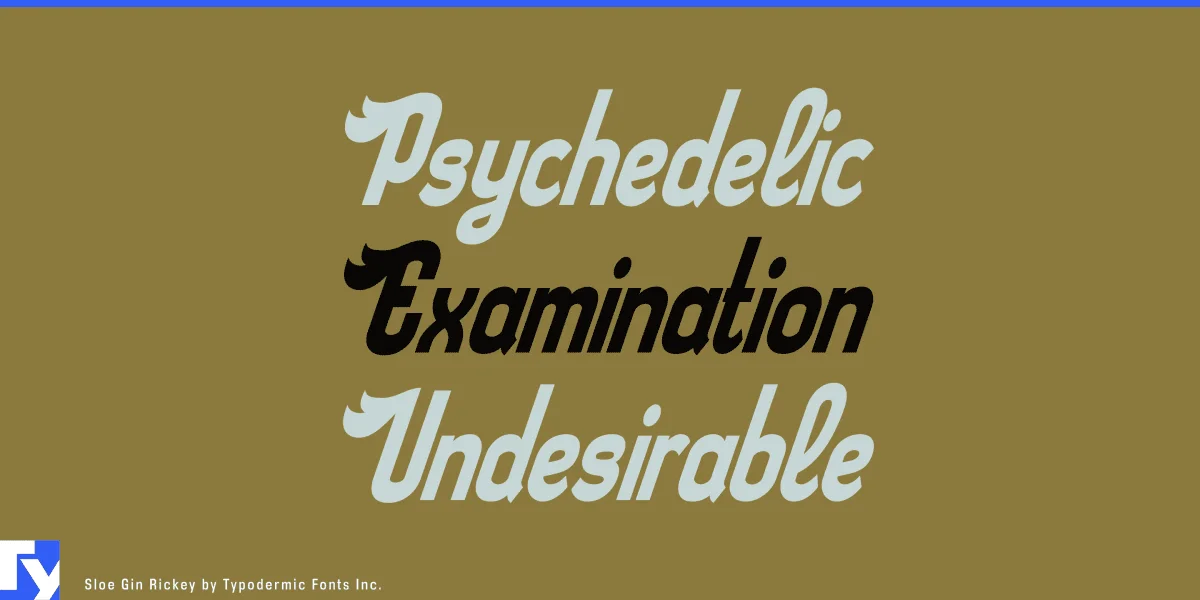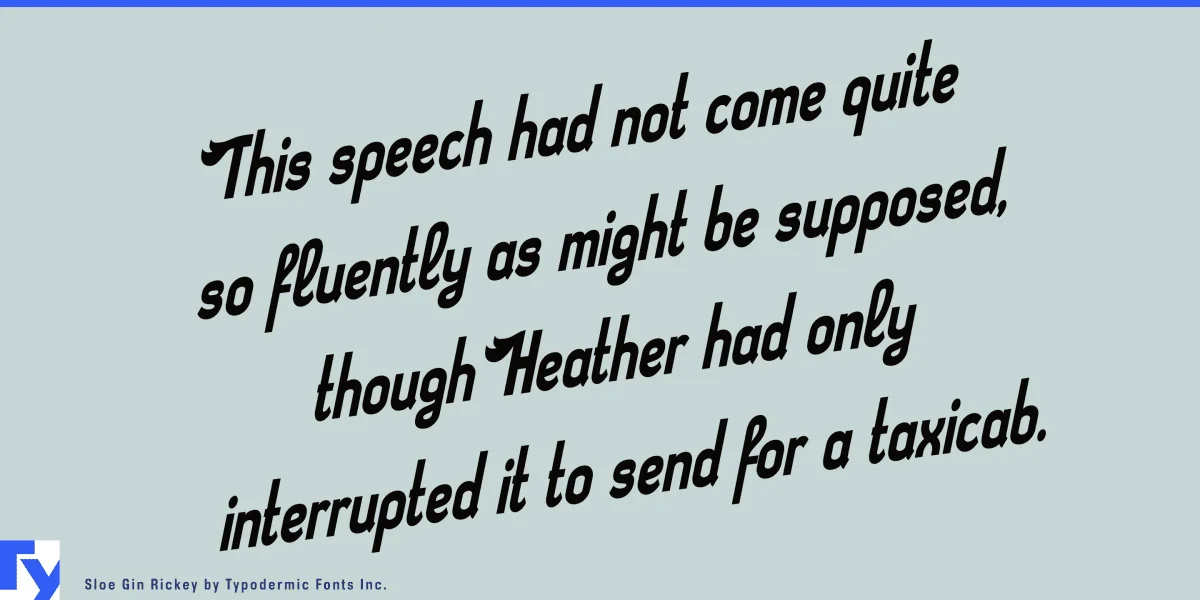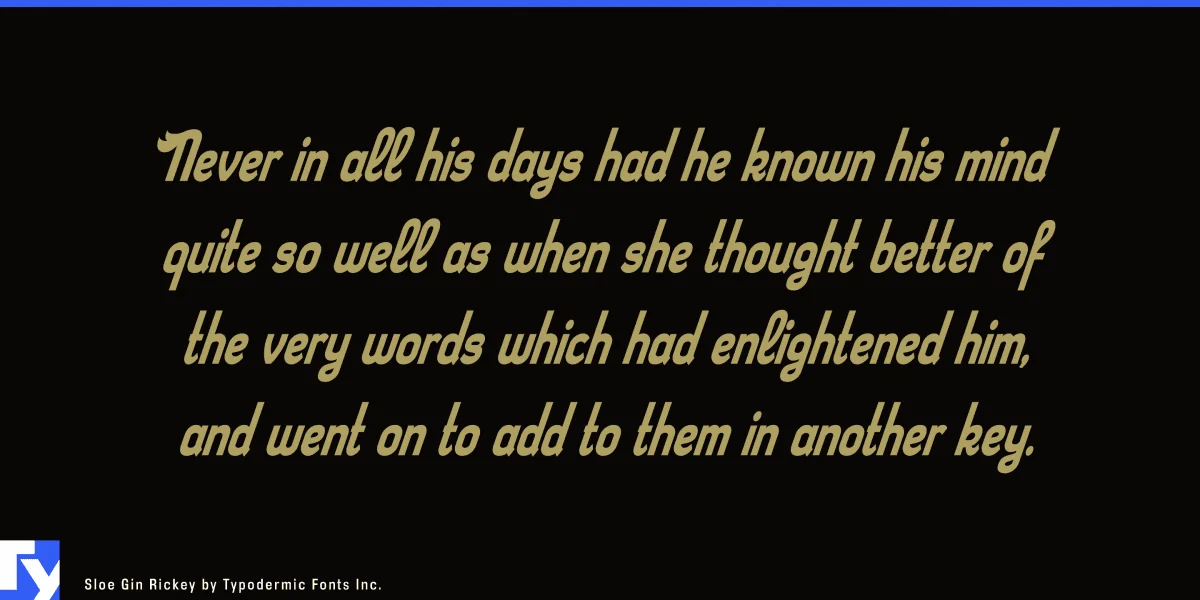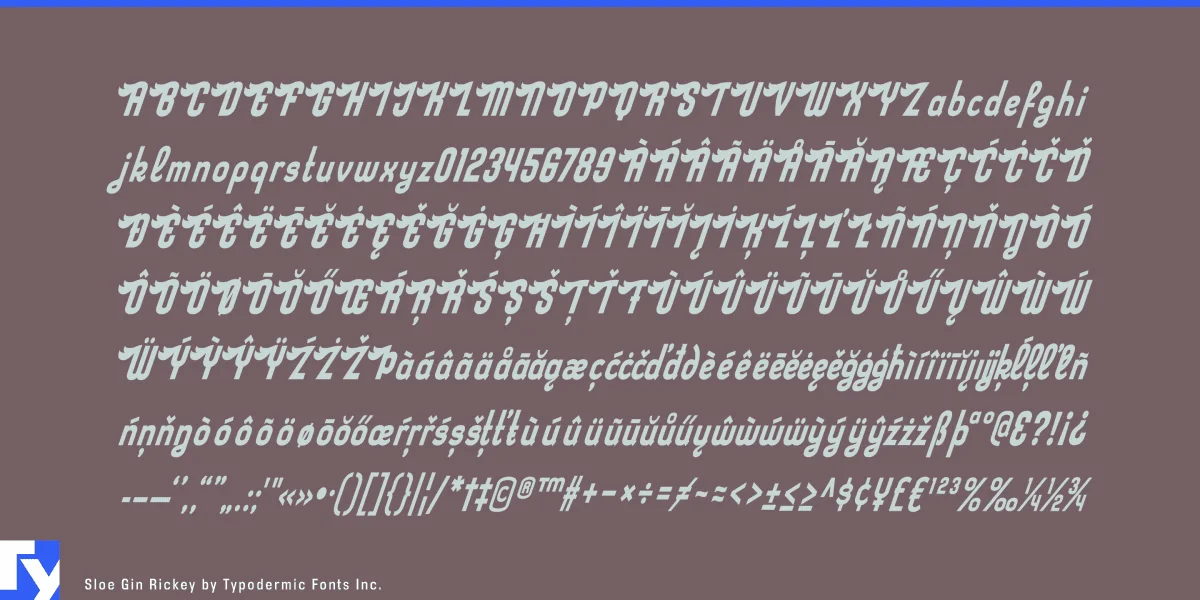
Sloe Gin Rickey is penned in an aliform, industrial style. It was influenced by mid-century automotive logo designs that employed wing shapes to represent speed. Some of these concepts can be seen in the old logos for Raybestos, Harley Davidson, and Bendix. Allow the cool industrial design of Sloe Gin Rickey's tight cursive shapes to infiltrate your message. Most Latin-based European writing systems are supported, including the following languages. Afaan Oromo, Afar, Afrikaans, Albanian, Alsatian, Aromanian, Aymara, Bashkir (Latin), Basque, Belarusian (Latin), Bemba, Bikol, Bosnian, Breton, Cape Verdean, Creole, Catalan, Cebuano, Chamorro, Chavacano, Chichewa, Crimean Tatar (Latin), Croatian, Czech, Danish, Dawan, Dholuo, Dutch, English, Estonian, Faroese, Fijian, Filipino, Finnish, French, Frisian, Friulian, Gagauz (Latin), Galician, Ganda, Genoese, German, Greenlandic, Guadeloupean Creole, Haitian Creole, Hawaiian, Hiligaynon, Hungarian, Icelandic, Ilocano, Indonesian, Irish, Italian, Jamaican, Kaqchikel, Karakalpak (Latin), Kashubian, Kikongo, Kinyarwanda, Kirundi, Kurdish (Latin), Latvian, Lithuanian, Lombard, Low Saxon, Luxembourgish, Maasai, Makhuwa, Malay, Maltese, Māori, Moldovan, Montenegrin, Ndebele, Neapolitan, Norwegian, Novial, Occitan, Ossetian (Latin), Papiamento, Piedmontese, Polish, Portuguese, Quechua, Rarotongan, Romanian, Romansh, Sami, Sango, Saramaccan, Sardinian, Scottish Gaelic, Serbian (Latin), Shona, Sicilian, Silesian, Slovak, Slovenian, Somali, Sorbian, Sotho, Spanish, Swahili, Swazi, Swedish, Tagalog, Tahitian, Tetum, Tongan, Tshiluba, Tsonga, Tswana, Tumbuka, Turkish, Turkmen (Latin), Tuvaluan, Uzbek (Latin), Venetian, Vepsian, Võro, Walloon, Waray-Waray, Wayuu, Welsh, Wolof, Xhosa, Yapese, Zapotec Zulu and Zuni.